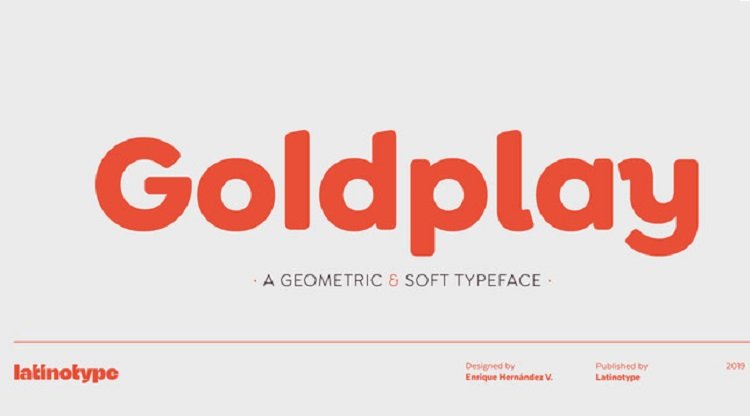
Goldplay Sans Font Family
This is a modern sans-serif by Latinotype. This is a minimalist and stylish round sans-serif font family that will make your design fresh and innovative. Introducing Goldplay Font. Goldplay Sans is rounded, soft terminals give it a friendly and expressive look, and its modern and contemporary style as well as its classic proportions make it an excellent choice for headlines, logotypes, branding, books, magazines, motion graphics, and use on web and Tv. One of its key features is a large x-height which make it look elegant and classy. Goldplay comes in 2 versions—each in 7 weights, from Thin to Black, and matching italics, resulting in a total of 28 fonts. The standard sans serif version—fresh, clean and contemporary—is a perfect choice for editorial and corporate design, headlines, books, magazines or any other piece of graphic design.